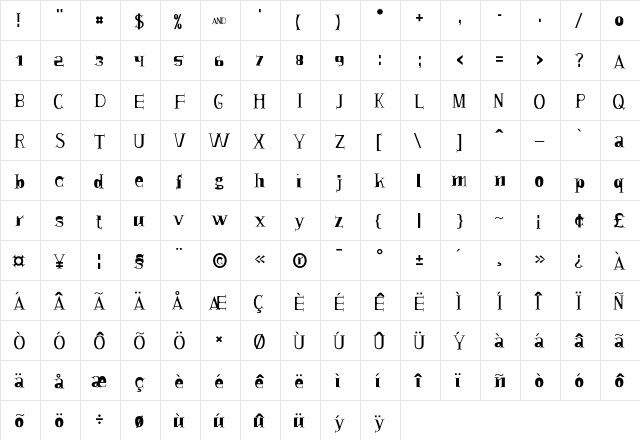
COLON IST Font Preview
COLON IST
COLON IST Font Details
| Style | IST |
Design Context for COLON Typeface
COLON is a composed and adaptable typeface that performs quietly and consistently across a wide range of design contexts.